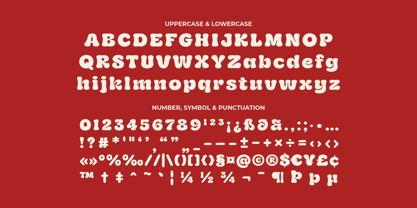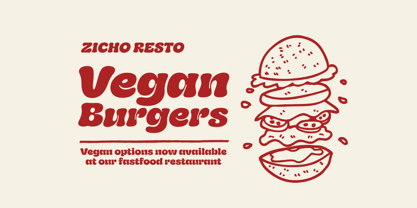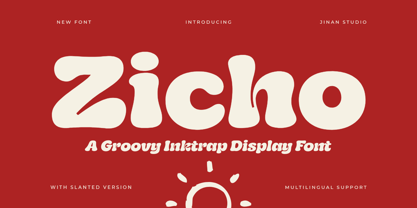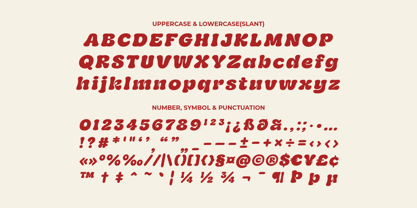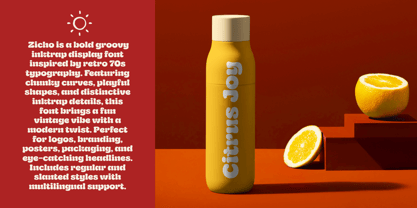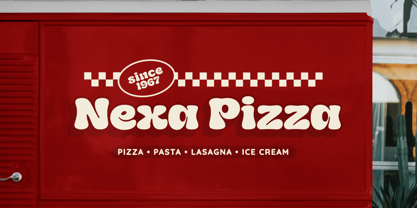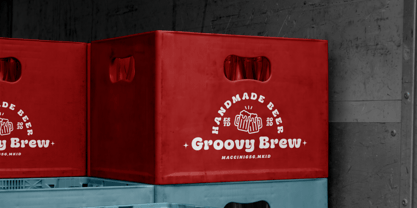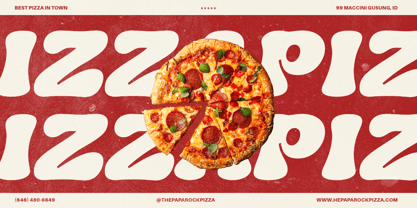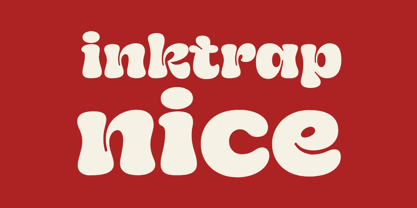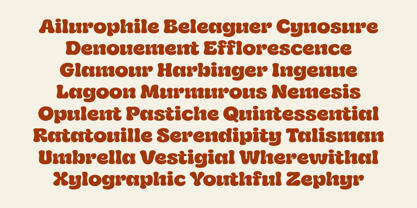
Zicho
by Jinan Studio
The Zicho Font Family was designed by Andi Syahdang, Ainun Jinan and published by Jinan Studio. Zicho contains 2 styles and family package options. More about this family
Zicho is a bold groovy inktrap display font inspired by retro 70s typography. Featuring chunky curves, playful shapes, and distinctive inktrap details, this font brings a fun vintage vibe with a modern twist. Perfect for logos, branding, posters, packaging, and eye-catching headlines. Includes regular and slanted styles with multilingual support. Features A set of uppercase and lowercase glyphs Number, symbol, and punctuation Multilingual Support Slant Version
Designers: Andi Syahdang, Ainun Jinan
Current Foundry: Jinan Studio